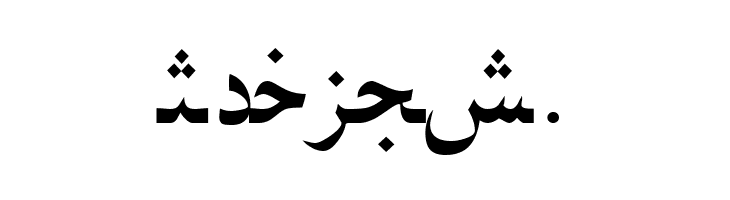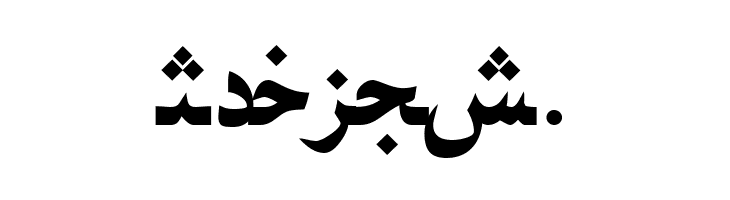
Droid Arabic Naskh Font
Elegant Arabic script with smooth curves and balanced structure.
Naskh Nay Font
A classic serif font with bold strokes and high contrast, ideal for formal uses.
Nafees Web Naskh Font
A sophisticated script font with elegant, flowing characters and dynamic contrast.
Urdu Naskh Asiatype Font
A traditional Naskh-style font for Urdu script with elegant, flowing lines.
Naskh Font
A decorative and ornate font with intricate designs.
Droid Arabic Naskh Bold Font
A bold, modern take on traditional Naskh Arabic script, emphasizing clarity and elegance.
Noto Naskh Arabic Bold Font
A bold, modern typeface with clean lines and strong legibility.
Noto Naskh Arabic Font
A modern, clean typeface with balanced structure and smooth curves.
Naskh Type I Font
A classic serif font with elegant strokes and refined details.
Noto Naskh Arabic UI Font
Modern sans-serif font for UI design.
HarmonyOS Sans Naskh Arabic Light Font
A modern, clean sans-serif font with balanced spacing and smooth curves.
Naskh Black Font
A bold, high-contrast font with a modern yet classic style.
Naskh Plain Font
A traditional Arabic script with smooth, flowing lines and moderate contrast, ideal for readability.
HarmonyOS Sans Naskh Arabic Font
A modern sans-serif font with clean lines and balanced proportions.
Naskh Qhalam Font
An elegant and traditional Arabic script font with flowing lines.
Naskh Cheft Kham Font
A refined and elegant script font with a traditional Naskh style.
Naskh Type II Font
A traditional and elegant script with flowing curves and intricate details.
Noto Naskh Arabic UI Bold Font
A bold, modern font with clear lines and excellent readability.
Droid Persian Naskh Font
A traditional and elegant script font with flowing, interconnected characters.
HarmonyOS Sans Naskh Arabic Medium Font
A clean, modern sans-serif font with uniform stroke width and excellent readability.